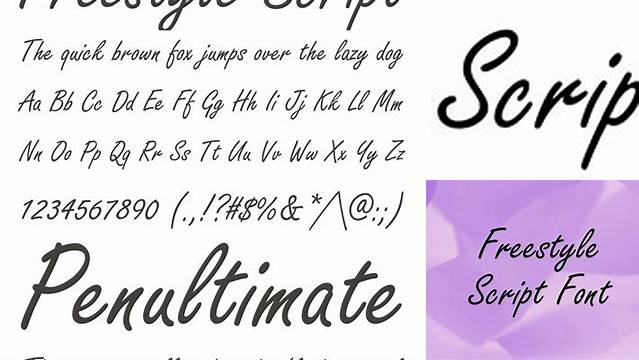
Freestyle Script font, a popular choice for designers and anyone looking to add a touch of flair to their projects, is readily available on Dafont. Dafont, a well-known website for free fonts, offers a vast collection, and the Freestyle Script font is among the most sought-after. This article will guide you through everything you need to know about the Freestyle Script font, including how to download it from Dafont, understand its features, and effectively use it in your designs. So, if you're ready to inject some personality into your work, stick around! We'll cover the ins and outs of this fantastic font.
Exploring the Features of the Freestyle Script Font
The Freestyle Script font is celebrated for its playful and expressive character. It's a handwritten-style font that brings a touch of elegance and personality to any design. Its key feature is its fluidity, with the letters seemingly dancing across the page. This dynamic quality makes it ideal for projects where you want to convey a sense of fun, creativity, or sophistication. The font typically includes a range of characters, including uppercase and lowercase letters, numbers, and punctuation marks. Some variations may also offer special characters or ligatures, which are connected letter combinations designed to enhance the font's flow and aesthetic appeal. The design of the letters tends to be a mix of thick and thin strokes, creating a visual contrast that adds to its charm. Its distinctive style makes it stand out, but it's also readable and versatile enough for various applications. Its informal style lends itself well to many creative projects. The font's design and features contribute to its popularity and widespread use in design and graphic arts. This versatility makes it a go-to font for designers looking to add a personal touch. Keep in mind its unique style when choosing it for your projects.
Character Set and Glyphs
When exploring the Freestyle Script font, you'll want to examine its character set and available glyphs. The standard character set includes the essential letters of the alphabet in uppercase and lowercase, numerals from 0 to 9, and basic punctuation marks. These characters are the building blocks for any text you create using the font. Some versions of the font may offer a more extended character set. This could include additional symbols, diacritics (such as accents on letters), and special characters that add to the font's versatility. Glyphs are individual characters or variations of characters within a font. Checking the glyphs allows you to see the different forms of each letter, the availability of ligatures, and other special features like alternative characters. Ligatures are designed to connect two or more letters smoothly, creating a more flowing and visually appealing appearance. These additions can significantly impact the look of your text. To view the character set and glyphs, you can either look at a font preview within your design software or use a font management tool. Font management software will show you the full character set, including any special glyphs. Familiarizing yourself with the available characters ensures that you can fully utilize the font's potential. Understanding the glyphs and character sets gives you greater control over the look and feel of your designs. Take some time to explore the possibilities and see how far you can push the Freestyle Script font!
Variations and Styles of Freestyle Script
While the original Freestyle Script font is widely available, variations and styles of the font exist. These variations can offer different weights, styles, or design elements that you might find useful for your projects. You might encounter different weights, such as regular, bold, or even italic versions. These variations allow you to add emphasis or create visual hierarchy in your design. Different styles might include subtle differences in the strokes, curves, or spacing of the letters. Some versions of the font might have a more whimsical or stylized appearance compared to the original. Font creators sometimes release updates or adaptations, expanding the options. When browsing for the font on Dafont or other font websites, pay close attention to the different versions available. Reading the font name and description can help you understand the differences between the styles. Exploring variations provides more design flexibility. You can experiment with different styles and see which best suits your needs. The availability of these variations adds to the versatility of the Freestyle Script font, allowing you to customize your designs. Comparing different styles allows you to choose the font that matches your project's overall tone and purpose. This way, you can find the perfect fit for your creative projects. These variations and styles offer more options.
Best Practices for Using Freestyle Script Font in Design
Incorporating the Freestyle Script font into your designs requires careful consideration to ensure it complements your overall aesthetic and message. Here are some of the best practices. Firstly, use it sparingly. Due to its distinctive style, the font is best used for headings, titles, or short phrases, rather than large blocks of body text. Excessive use of the font can make your design appear cluttered. Secondly, ensure readability. While the font is beautiful, its script style can sometimes be less legible than other fonts. Make sure the font size is appropriate and that there's sufficient contrast between the font color and the background. This will enhance readability. Thirdly, consider the context. The font's informal and playful style may not be suitable for all projects. It works well for invitations, logos, or personal projects but might not be the best choice for formal documents. Fourthly, pay attention to kerning and spacing. Adjusting the spacing between letters can improve the font's appearance. Some design software allows you to customize kerning. Fifthly, pair it with other fonts. Combining the Freestyle Script font with a complementary sans-serif or serif font can create a balanced design. For instance, using it for headings and a clean sans-serif font for body text can create visual harmony. Lastly, always test your design. See how the font looks in different sizes, colors, and backgrounds before finalizing your project. This helps you ensure the font effectively communicates your message.
Typography Tips for Effective Use
To get the most out of the Freestyle Script font, understanding some basic typography tips will be helpful. Start by considering the font size. Make sure the font is legible at the size you choose, and that the size matches the importance of the text. Headings and titles should generally be larger than body text. Next, focus on the line height. Line height is the vertical space between lines of text. Adjusting the line height can significantly impact the readability and visual appeal of your design. A generous line height usually makes text easier to read. Additionally, pay attention to the kerning and tracking. Kerning is the space between individual characters, while tracking adjusts the space between all characters in a text block. You might need to adjust these settings to improve readability or achieve a specific visual effect. Think about the alignment of the text. The font works best in a centered alignment, but you can also consider left alignment, depending on the design's style and layout. Avoid justifying the text as it can sometimes create uneven spacing with script fonts. Always ensure sufficient contrast between the font color and the background. This is especially important with this font. White text on a dark background or dark text on a light background works well. Finally, keep things consistent. Use the font consistently throughout your design to create a cohesive look. Follow these typography tips to get the best possible results with the Freestyle Script font.
Key Takeaways and Final Thoughts
In conclusion, the Freestyle Script font is a fantastic choice for many design projects. Downloading the font from Dafont is a simple process. Once you've downloaded the font, be sure to pay attention to the license terms. This way, you can avoid any potential legal issues. Remember the characteristics of the font. The font is best used for headings, titles, or short phrases. It is not suitable for long body text. Apply the design tips we've discussed. Choose a good font pairing. The key is to be creative. Don't be afraid to experiment. Practice and experimentation will help you master this font and create stunning designs. Remember to keep the font in good context. Consider its potential and limitations. Always consider the project's goals and the audience. The most important thing is to have fun with the font. With a solid understanding of the tips we've discussed, you'll be well on your way to creating professional designs. Take your creative skills to the next level! This will give you confidence when you're working on your next project. The Freestyle Script font is a good font to start with.